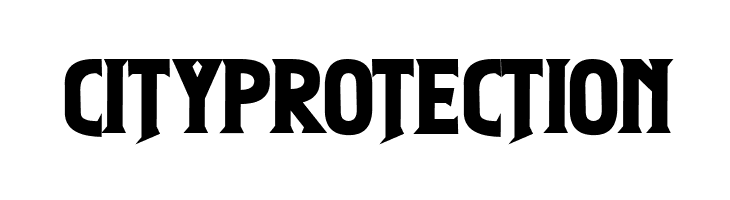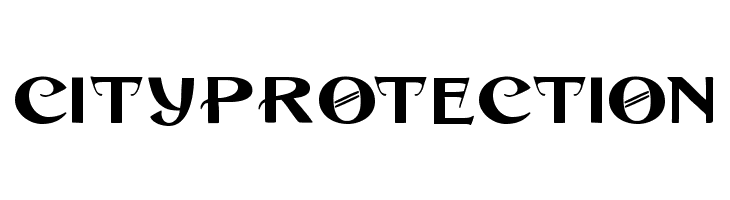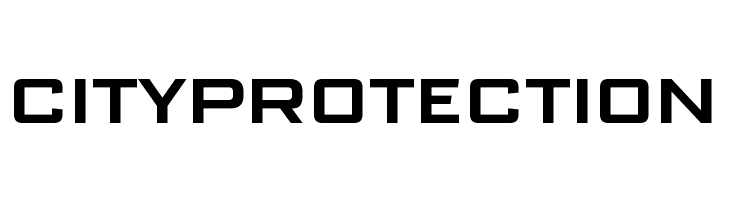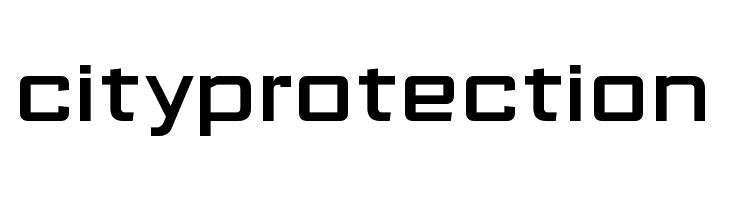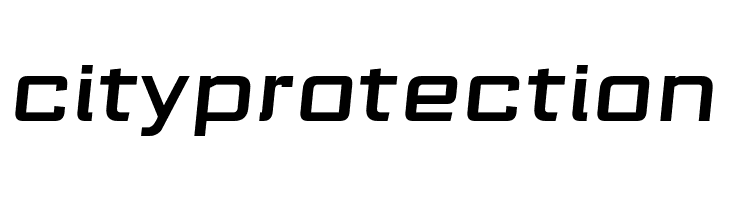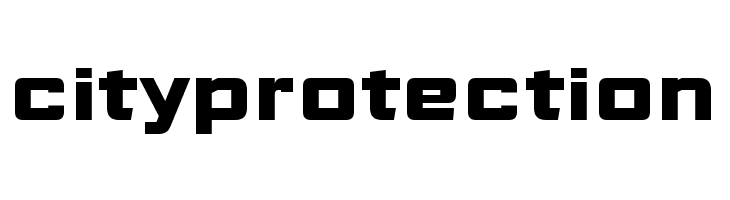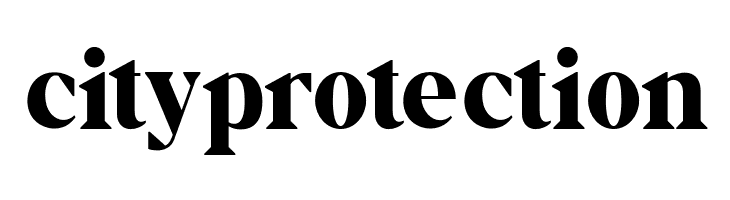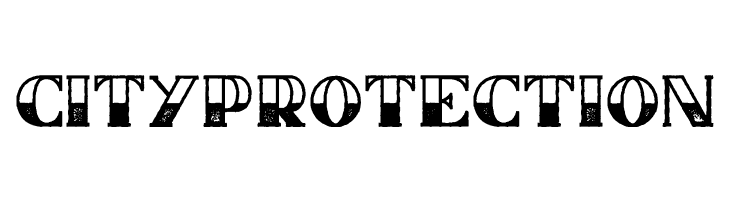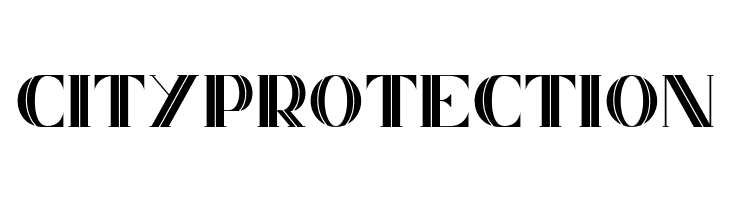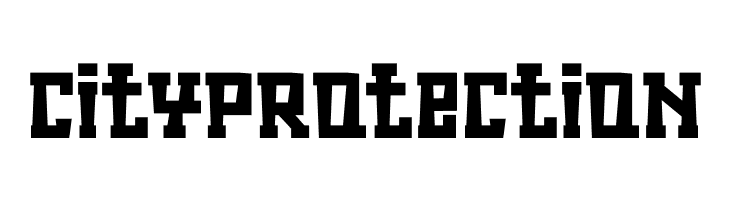
• CRYSTALCORE
A bold, futuristic font with sharp angles and a geometric structure.
• CrystalHouse
A bold, distressed font with a rugged, edgy texture.
• CrystalRadioKit-Regular
A bold, geometric font with a modern and striking design.
• Crystasea
A bold serif font with strong strokes and a modern twist.
• Crystasea
A bold, serif font with strong, authoritative strokes and classic elegance.
• CS Grimrock
A rugged, medieval-inspired font with a distressed, hand-crafted appearance.
• CS Nancy Free Halfblock Rough
A bold, distressed font with a rough, textured appearance, perfect for vintage or industrial designs.
• CS Nancy Free Inner
A bold, high-contrast font with geometric shapes and dramatic serifs.
• CS-Fox
A bold, geometric font with a futuristic and technical design.
• CS-Fox Italic
A modern, italic font with geometric, angular design and dynamic slant.
• CSAR
A bold, blackletter-inspired font with intricate detailing and dramatic flair.
• CSAR Italic
A bold, italic serif font with elegant flourishes and dynamic style.
• CSAR PARADE DRESS [Display Caps]
A bold, decorative font with intricate serifs and high contrast strokes.
• CSAR VESTMENT
An ornate, decorative font with intricate geometric patterns and a historical aesthetic.
• CsemegeDemo
A delicate, flowing script font with elegant, interconnected strokes.
• CSNancyFree-HalfblockRough
A bold, distressed font with a vintage, industrial aesthetic.
• CSNancyFree-Inner
A bold, high-contrast font with sharp, angular lines for modern headlines.
• Cthulhu's Calling
A bold, gothic-inspired font with sharp, angular edges and dramatic serifs.
• Cuaca Dingin
A decorative font with a melting, fluid style and bold, irregular strokes.
• Cuatro Colores
Bold, quirky display font with irregular, hand-crafted shapes.
• Cuatro Zombies
A bold, angular font with a modern, industrial style and high contrast.